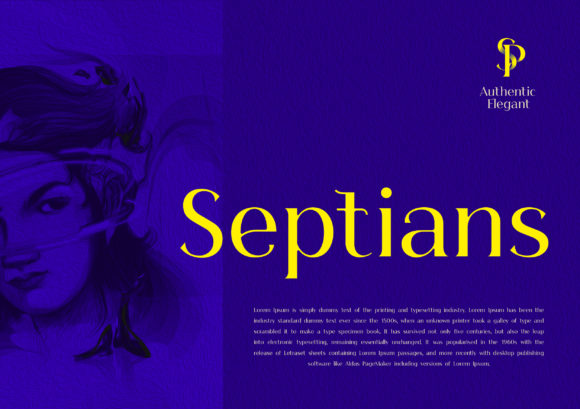
Septians Font
In the vast world of typography, where characters dance and letters speak volumes, Septians Font emerges as a captivating serif masterpiece. Meticulously crafted with a touch of elegance, this font is not just a collection of glyphs; it's a magical spell that transforms your words into works of art.
With its sweeping curves and delicate details, Septians Font adds a touch of sophistication to your digital creations. Whether you're crafting captivating Instagram posts, calligraphy projects, or seeking the perfect font for your PPT titles, Septians Font stands ready to ignite your creativity and leave a lasting impression.
Step into the world of Septians Font and watch your words come alive. Experience the magic of seamless harmony and the power of elegantly crafted characters. Let Septians Font enchant your audience, one letter at a time. Embrace the beauty of timeless design and unleash the magic of Septians Font �егодн�.